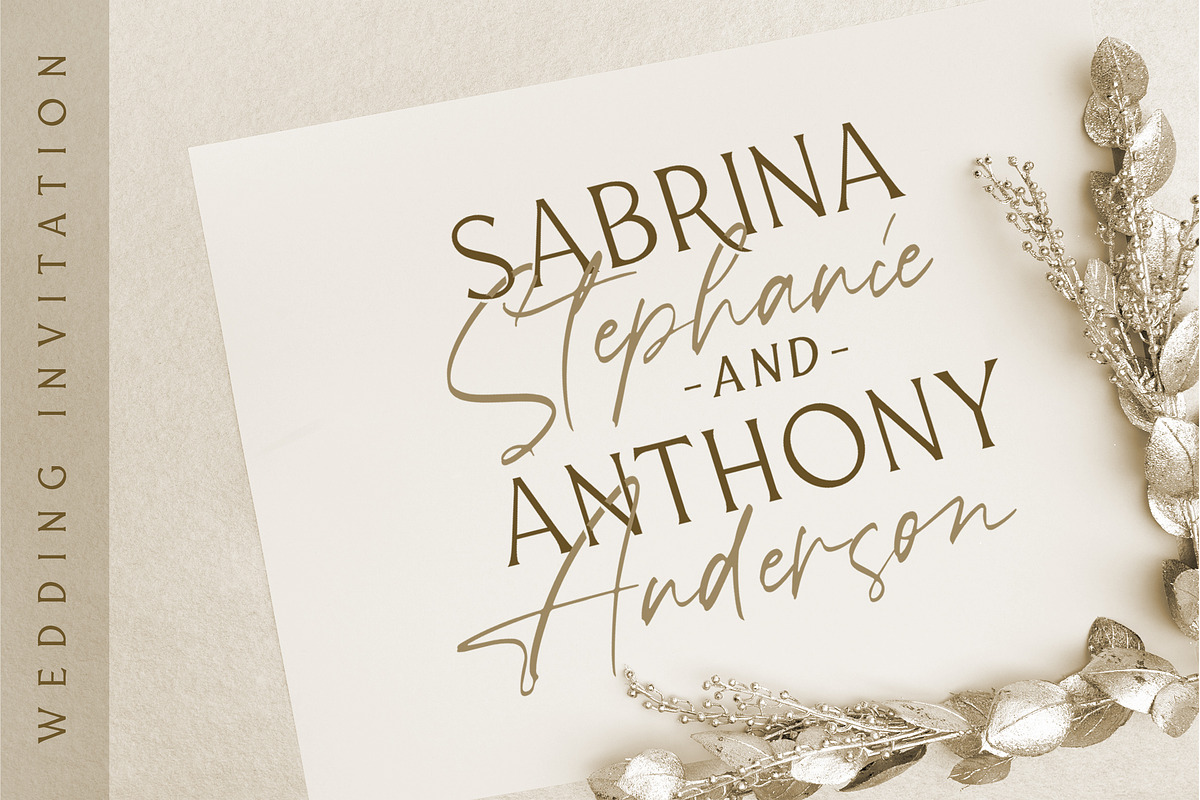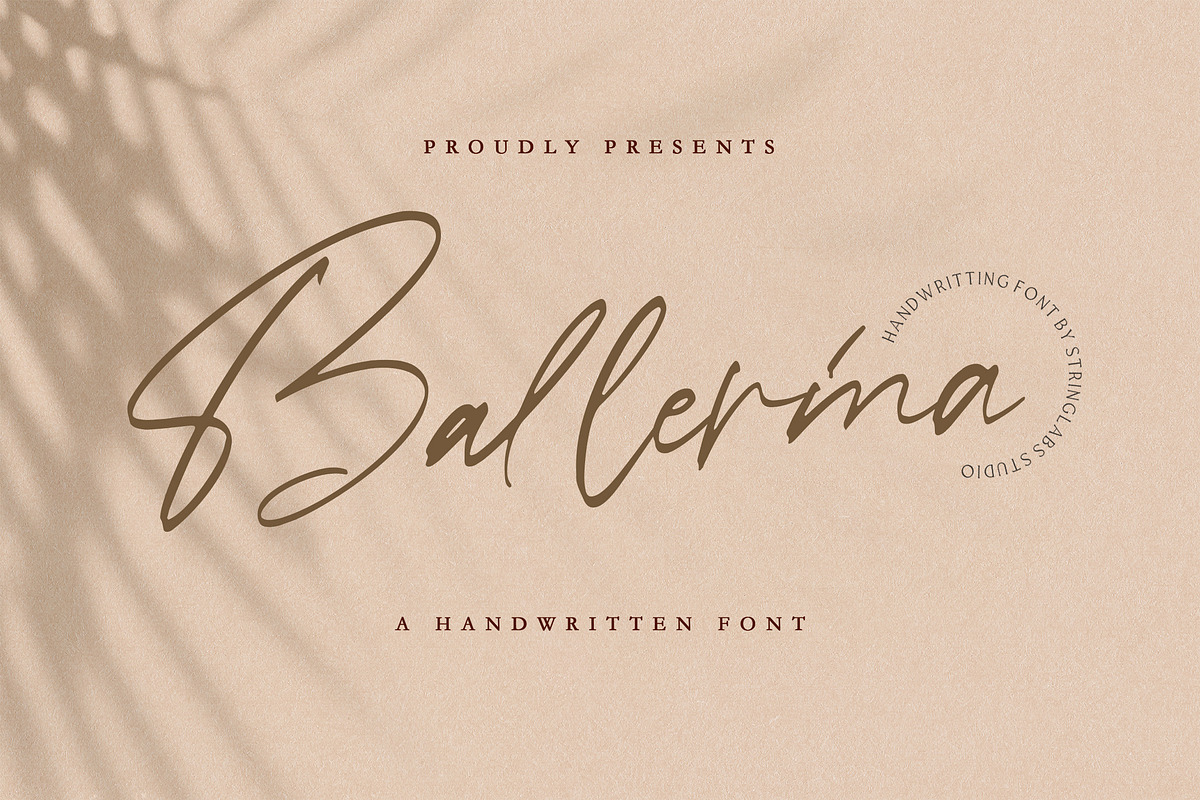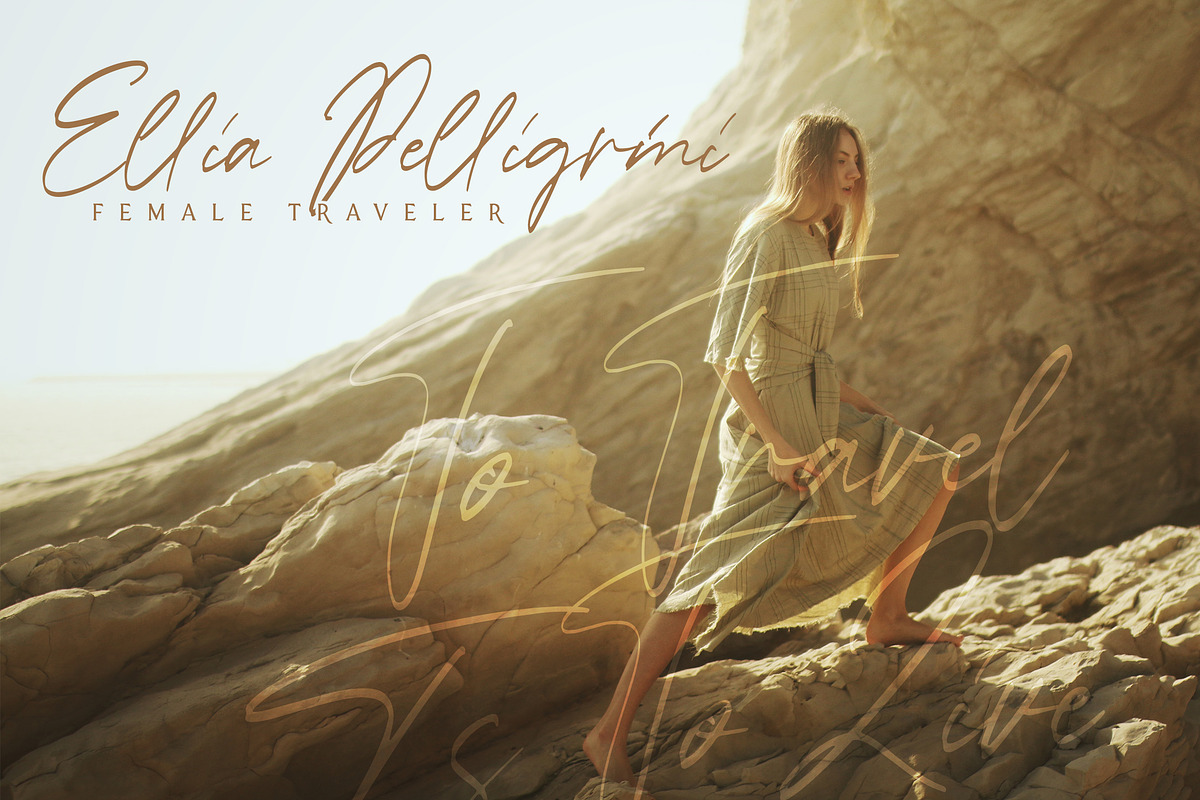
Ballerina - Signature Script Font
Introducing Ballerina - Signature Script Font
Ballerina is a Signature Script Font with Modern Style. This font is perfect for fashion brand, wedding invitation, business card, logo brand, signature, and also calligraphy.
- This Font Template contains Classy, Elegant, Creative, Cool and has a Unique Concept.
Why Ballerina - Signature Script Font is worth a look
Ballerina - Signature Script Font by StringLabs fits naturally into Branding, posters, packaging, typography.